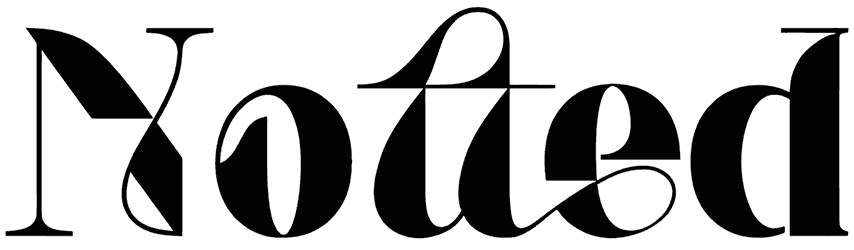
Notted Font
Have you ever been involved in performing or designing unique typography that takes up much time and energy? If you do, keep in touch with us, download Notted from our collection of serif fonts promptly, and use it many times to design magazine covers or cosmetic brands amazingly.
This yoga font with its innovative curved body can always stay in fashion and also create a sense of intimacy and comfort for your audience to communicate more efficiently.